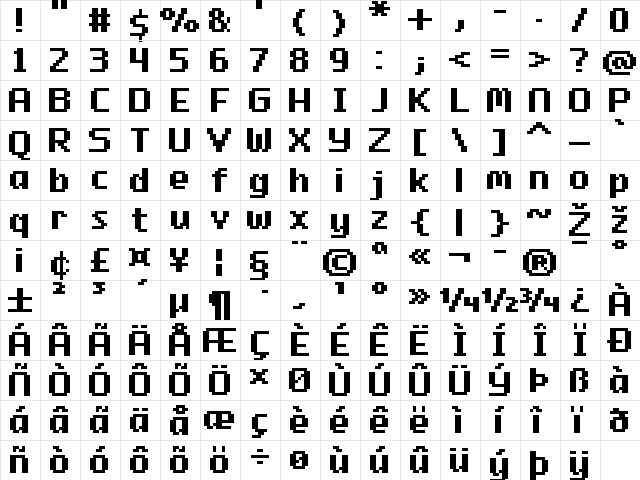
FFF Zerofactor Bold Extended Regular
Design Context for FFF Zerofactor Bold Extended Typeface
FFF Zerofactor Bold Extended offers clean, dependable letterforms without strong stylistic allegiance, making it a practical choice for designers who need flexibility. The heavy weight commands attention and anchors typographic hierarchies.